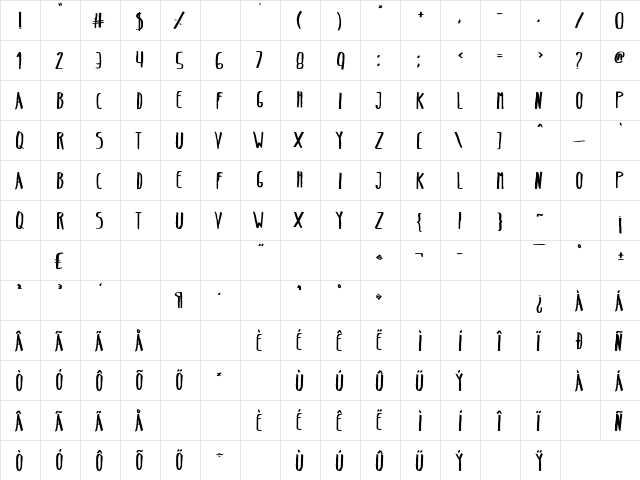
Belta Regular Regular
| Designer | Julia Martinez Diana, Antipixel |
Design Context for Belta Regular Typeface
Belta Regular is a composed and adaptable typeface that performs quietly and consistently across a wide range of design contexts.